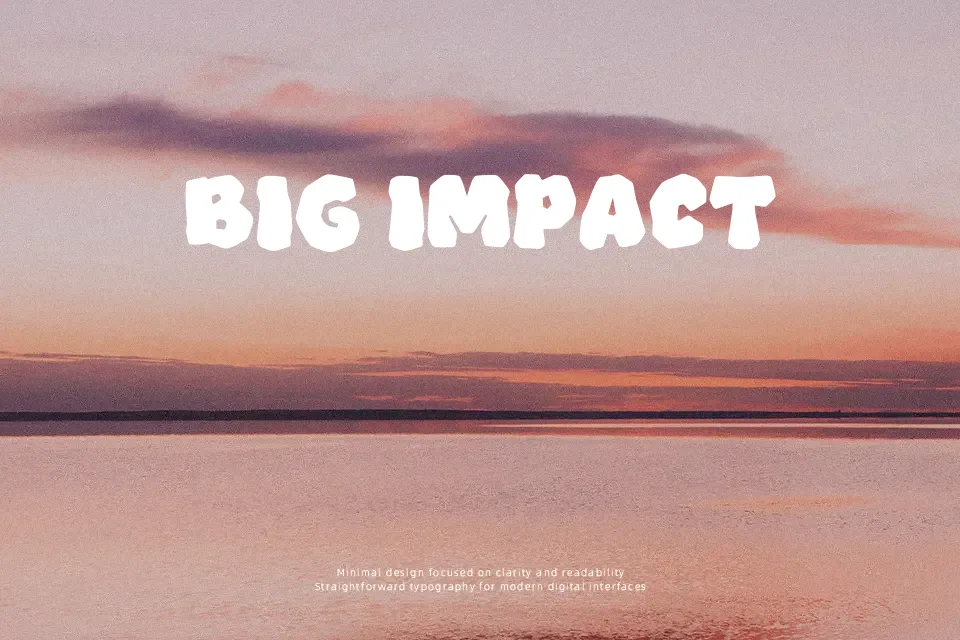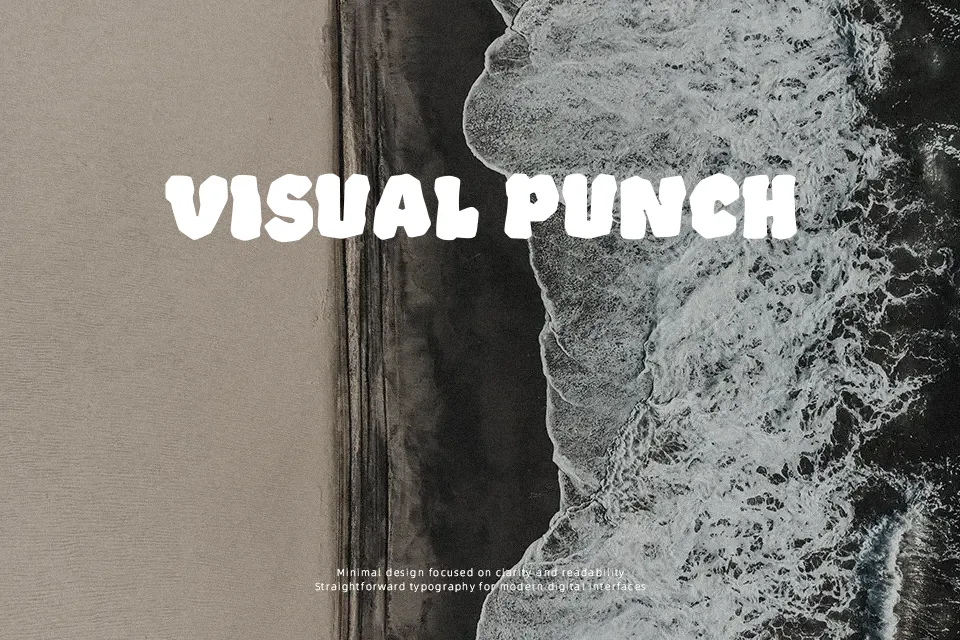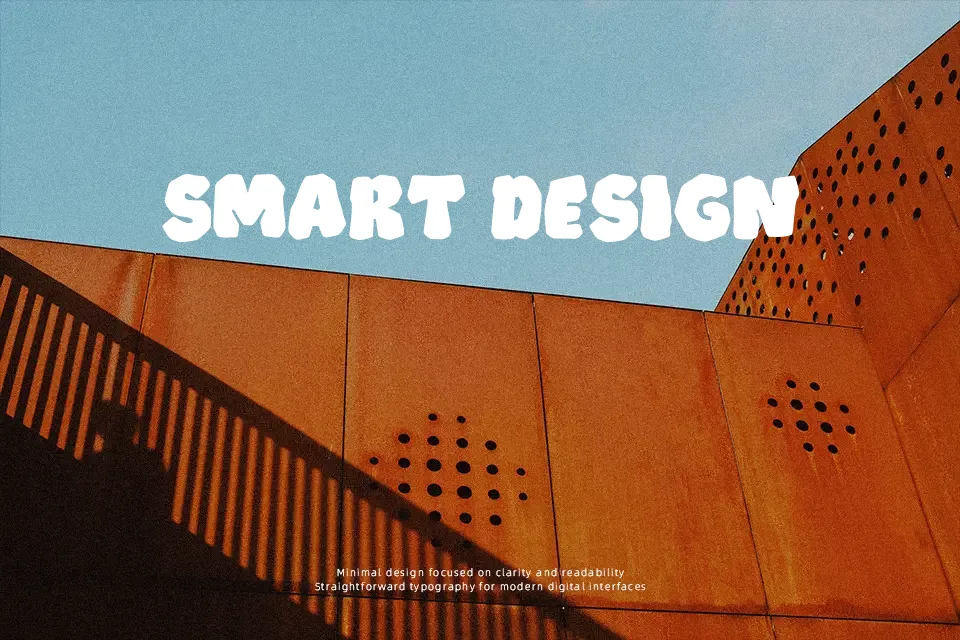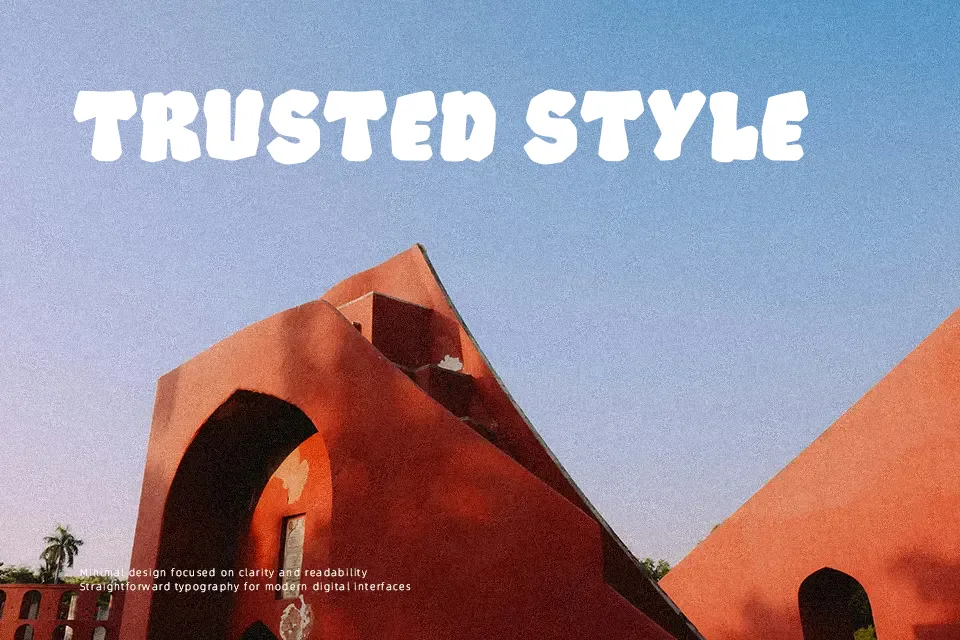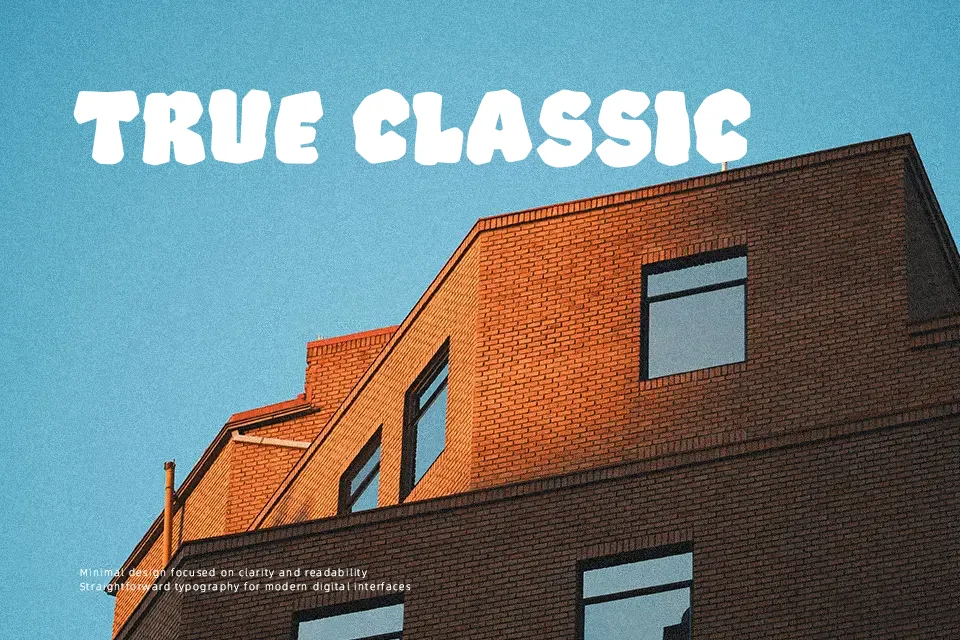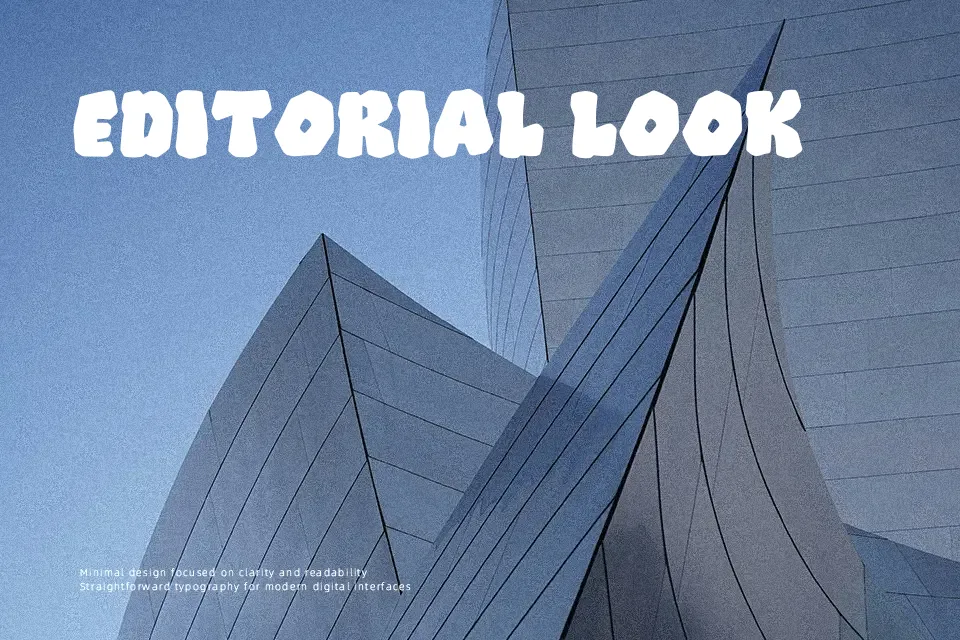
Trekstone Font
Built with hefty strokes and softened contours, Trekstone Font presents an exaggerated cartoon structure that emphasizes playful weight over subtle geometry. Each letterform features uniform stroke thickness with virtually zero modulation, producing an exceptionally heavy visual footprint. The characters maintain slightly condensed proportions paired with tight spacing, which keeps headlines cohesive and punchy when set at larger display scales. In practical application, the spacing helps maintain clarity in large headlines, making the design particularly effective for children’s posters, toy branding, and mobile game headers. However, the condensed counters and bulky outlines significantly impair continuous reading, making the typeface unsuitable for body copy or small interface captions.
Best For: children’s book covers, toy packaging, animated title cards, arcade game headers
Not Ideal For: extended body paragraphs, formal business contracts, dense editorial layouts, small user interface captions